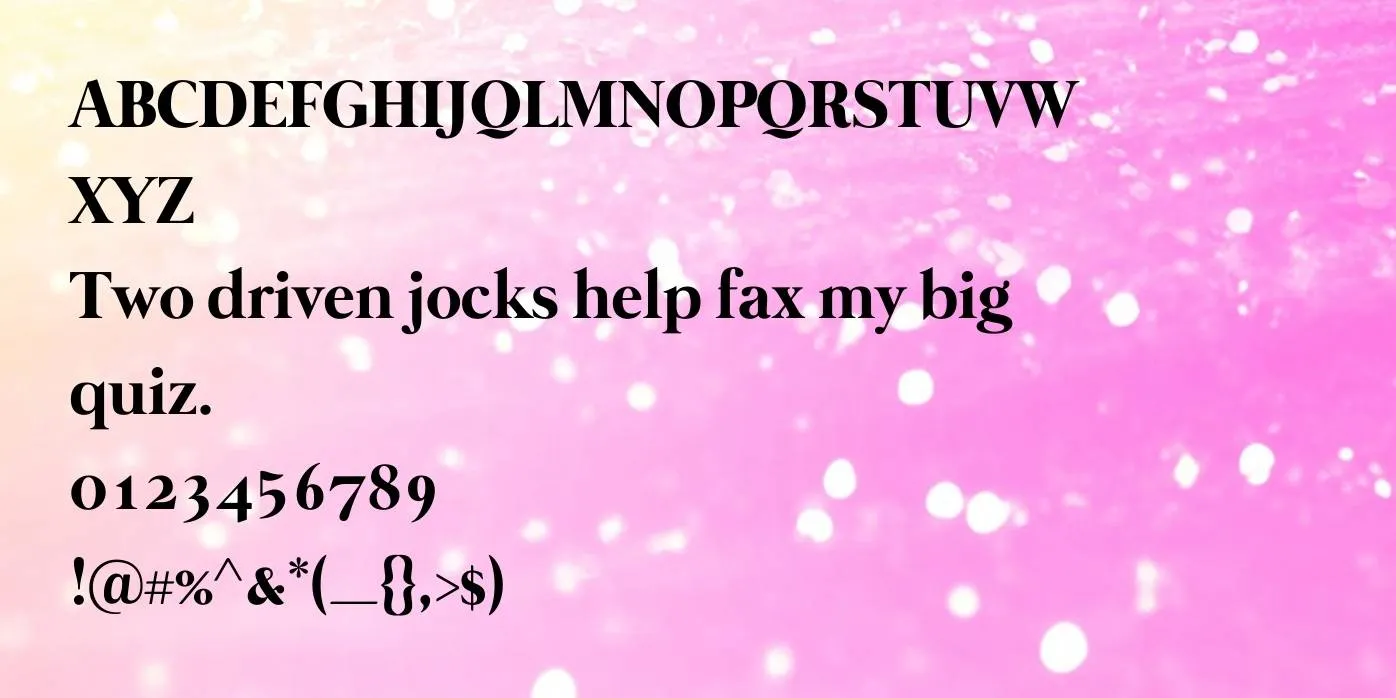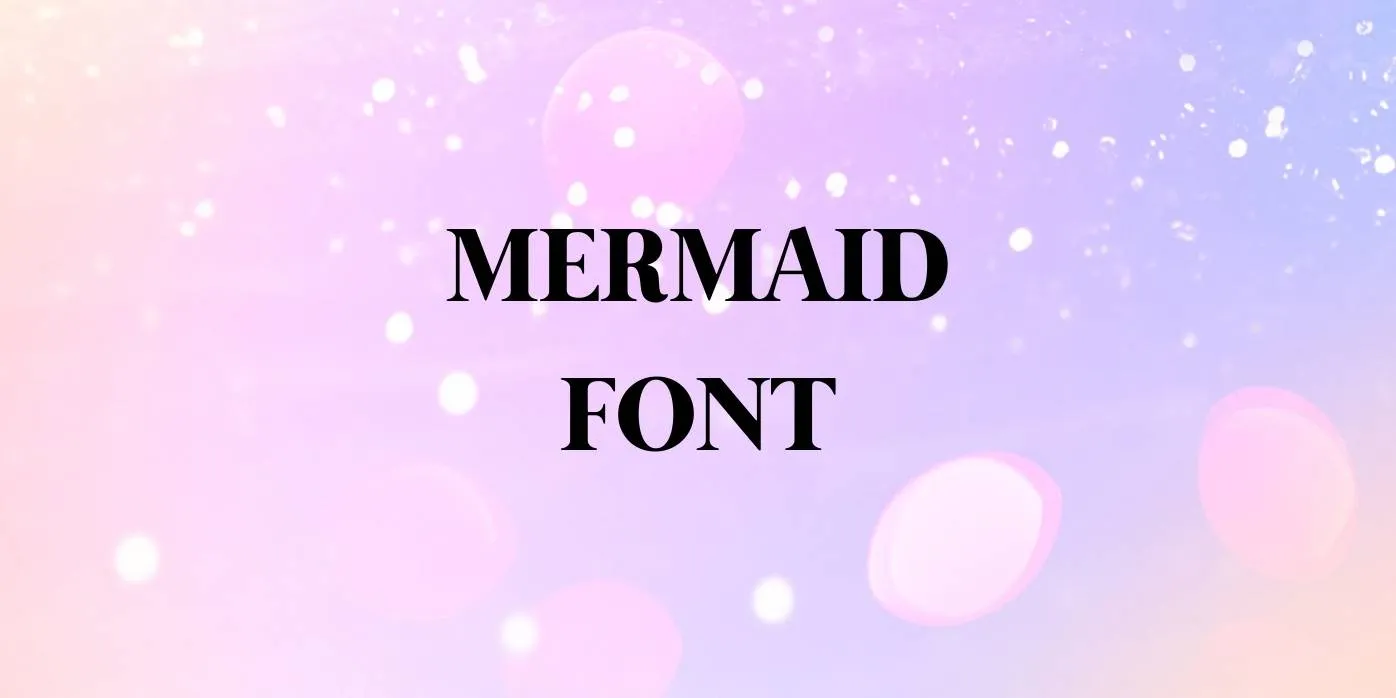
Mermaid Font
Introducing a very stylish and eye-catchy typeface that is Mermaid font. It belongs to a Serif typeface family and it is the great work of Scott Simpson that is the pro-level type designer. The font has TTF features and is free for personal use. The font family has Two beautiful styles that are Mermaid Normal and Mermaid Swash Caps, and all the styles have Uppercase letters, Lowercase Letters, Numerals and Numbers, and unique symbols also.
The TrueType features typeface is very gorgeous due to its serif shape characters. Mermaid Font’s regular style characters have little shorter serif tales and with a condensed stroke that has an impressive look. Its swash caps weight also has longer tails with little bit rounds and bold shape. Its creator made it more professionally and with satisfaction.